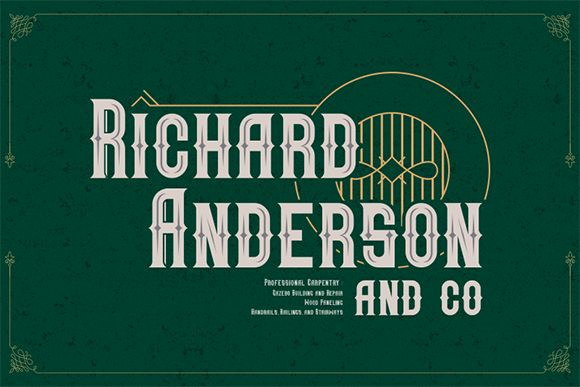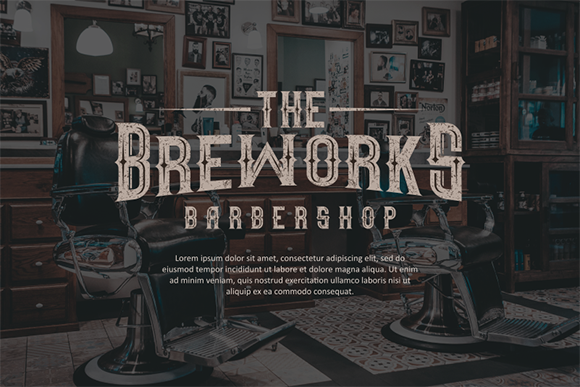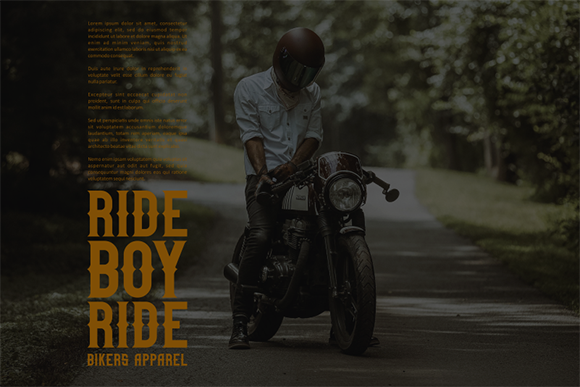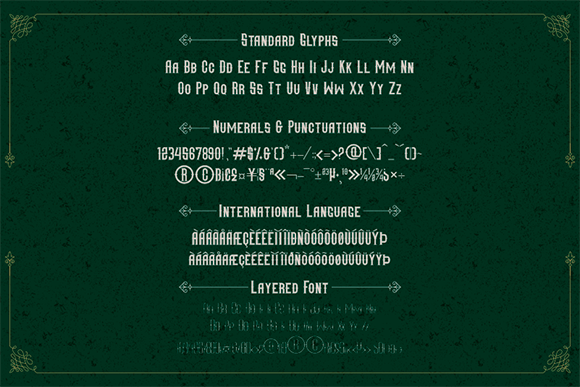
Introduction to Mangarans Font
Mangarans is a stunning vintage font with amazing letters.
Get inspired by its retro feel .
Key Features of Mangarans Font
Why Choose Mangarans Font?
Mangarans Font offers exceptional quality and versatility, making it a valuable addition to your design toolkit. Whether you’re creating for personal projects or commercial use, Mangarans Font delivers professional results.